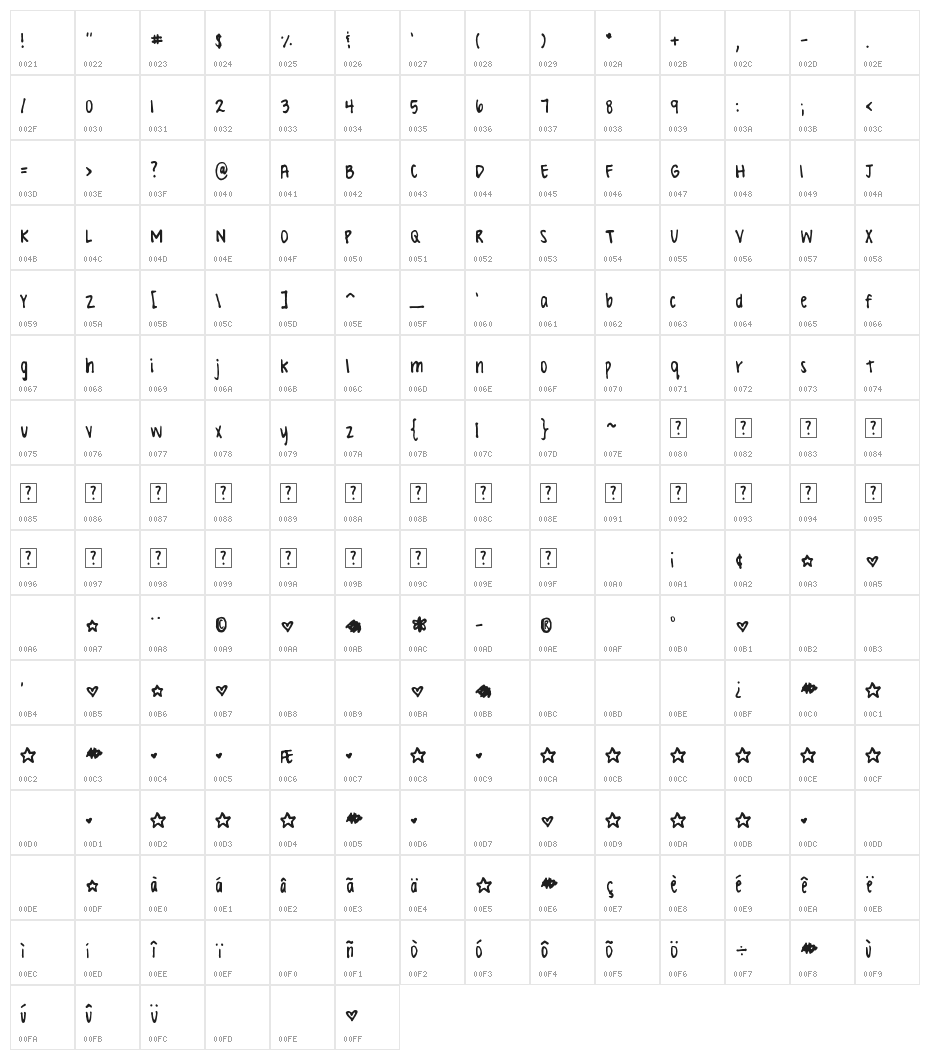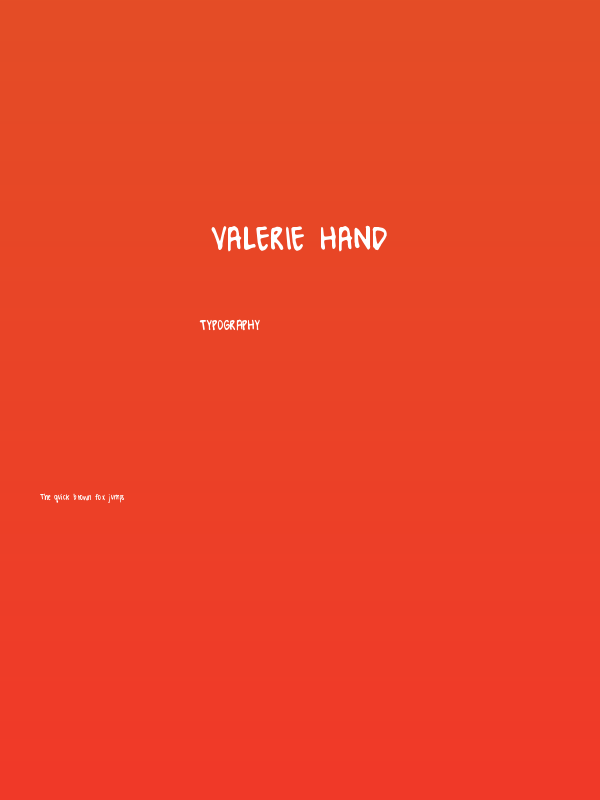
Valerie Hand Font
Valerie Hand Description
This font features a playful and casual handwritten style, characterized by its uneven strokes and organic flow. The letters have a natural, slightly irregular appearance, giving them a personal and friendly feel. The uppercase and lowercase letters maintain a consistent style, with rounded edges and a slight tilt that adds to the informal aesthetic. The numbers and special characters follow the same design principles, ensuring a cohesive look across all glyphs. This font is ideal for projects that require a touch of personality and warmth, such as invitations, greeting cards, or personal branding.
| Use Case | Headlines, Informal text, Personal projects |
| Proposed Projects | Ideal for invitations, greeting cards, personal branding, and informal communication. |